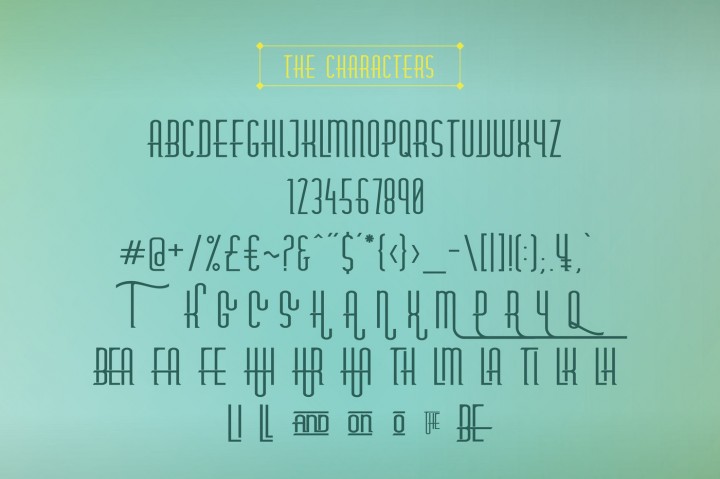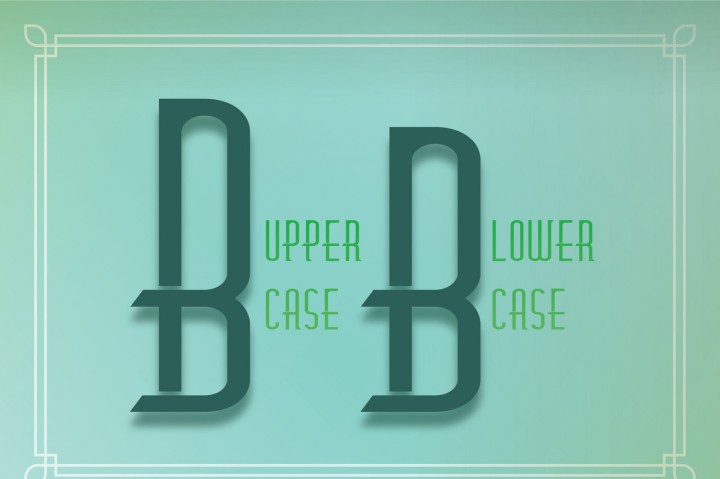
Beatrixe Typeface
Beatrixe is a font inspired by vintage lettering. Small-caps version. Always fit for your poster quote things, logo, branding, magazine headlines, sign, etc.